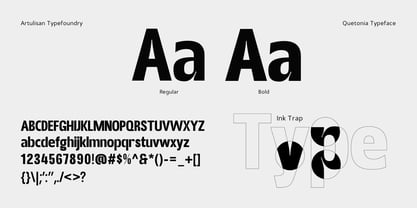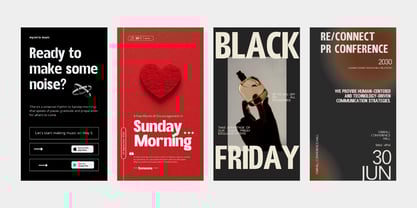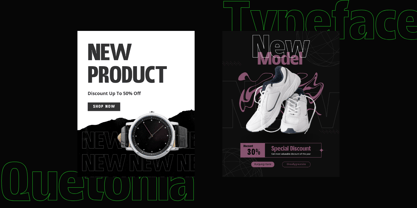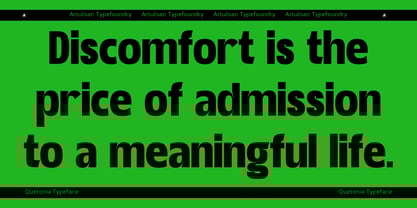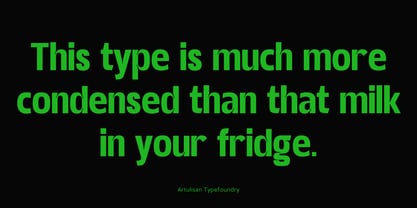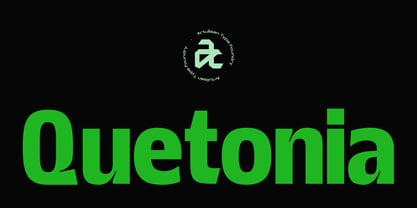
Quetonia
by Artulisan Typefoundry
The Quetonia Font Family was designed by Mhd Husaini and published by Artulisan Typefoundry. Quetonia contains 2 styles and family package options. More about this family
Quetonia is a powerful and modern sans serif font designed for impact. With its bold and heavy letterforms, this typeface is perfect for making strong visual statements in branding, headlines, and logo designs.
Engineered with precision, Quetonia balances clean lines and geometric structure, making it highly versatile for both print and digital use. Whether you’re working on corporate branding, editorial layouts, advertising, or web interfaces, Quetonia ensures readability and professionalism while exuding confidence and modernity.